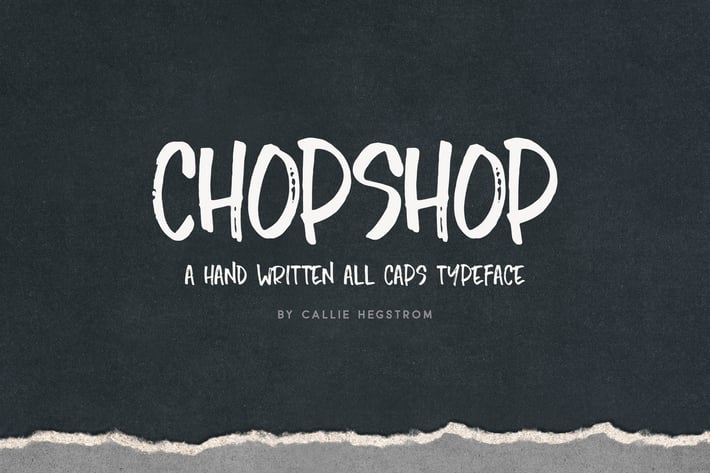
Chopshop Typeface
Introducing Chopshop, a fun, gritty handwritten typeface, perfect for social media, logos, greeting cards, mugs, apparel, quotes and more. I've seen this used on totes and tumblers, and it looks awesome!